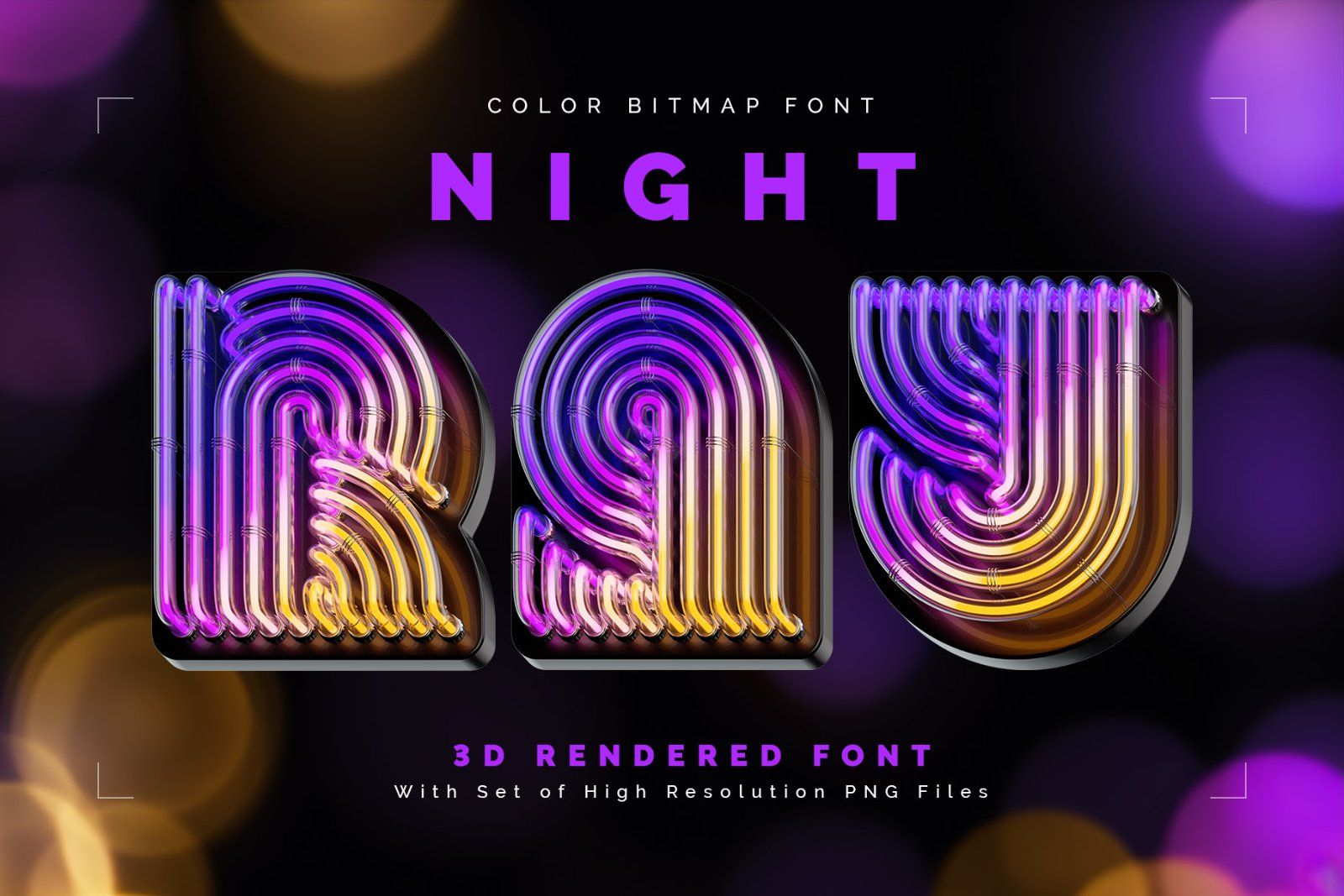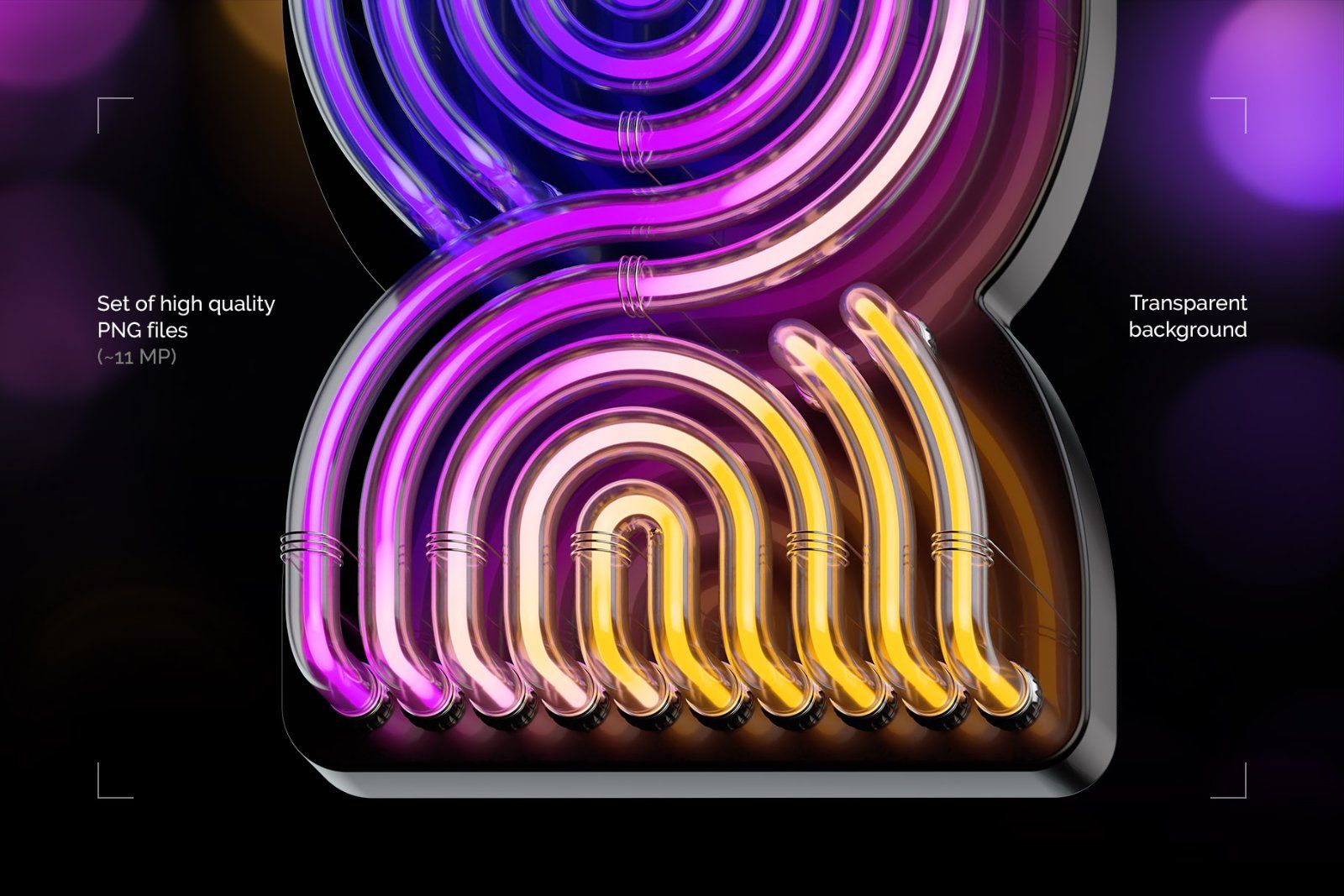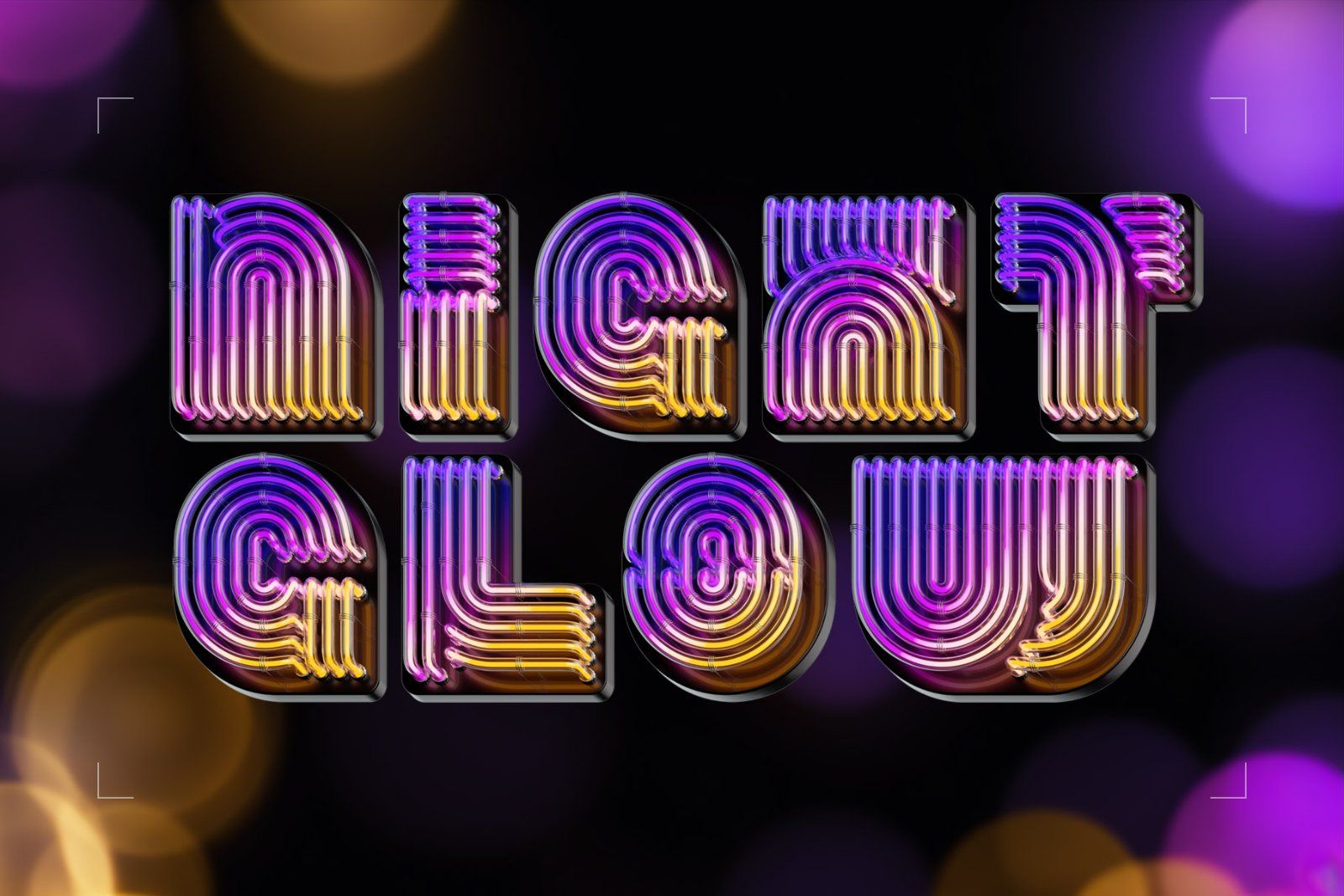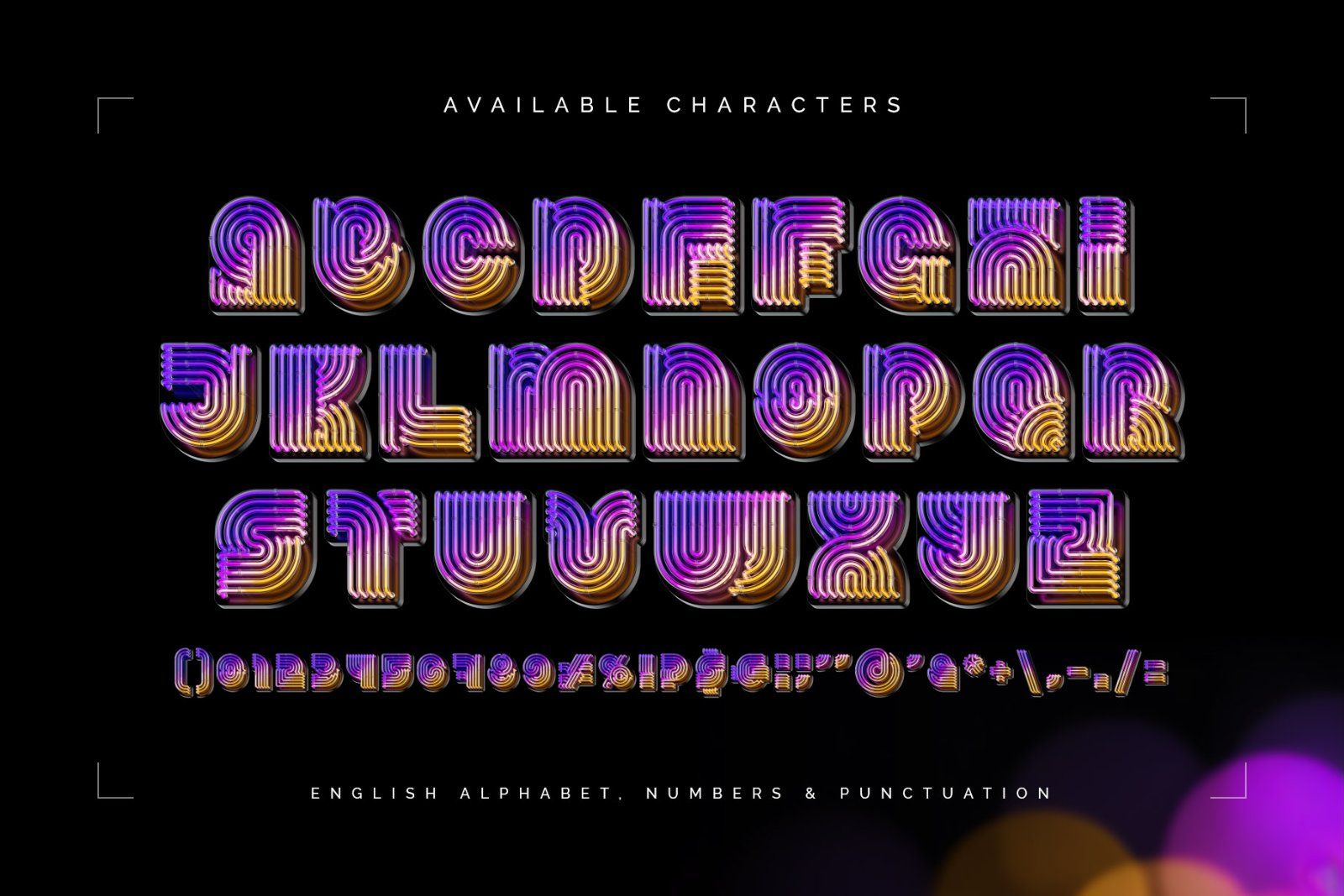
Hello! Presenting colorful creative font set – Night Ray. It's a 3d rendered high quality typeface made of warm light bent tubes. Each letter is made of several glass tubes with a glowing multicolored led light inside. First of all it's a color bitmap OpenType-SVG font that can be used as a usual OTF font. Also a set of full resolution PNG files with transparent background is included (Average resolution is 10 megapixels). Consider that only English language and basic punctuation is supported, please check out the screenshot with all available characters.